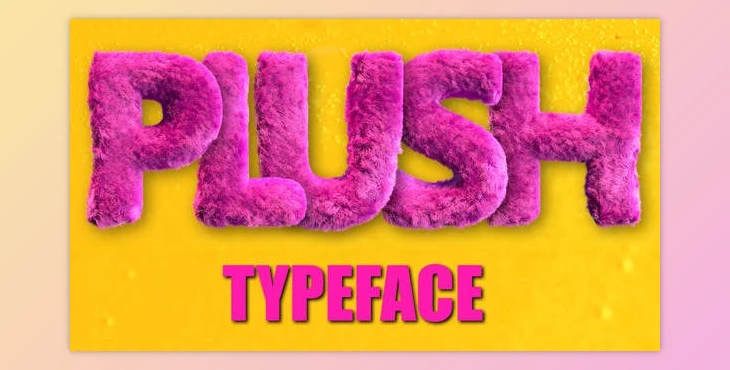
Plush Typeface (Videohive 46956671) - AE Project: The After Effects template has a 52-character alphabet with plush-themed letters, numbers, and symbols, all rendered using 3D-like simulation. It can be used to create text animations to add to your video. An instructional video is included. Get it today! No plugins required.
Each character can't be changed as each is a pre-drawn composition that you drag and drop to create the desired words. It includes six pre-made texts as well as a Color Control.